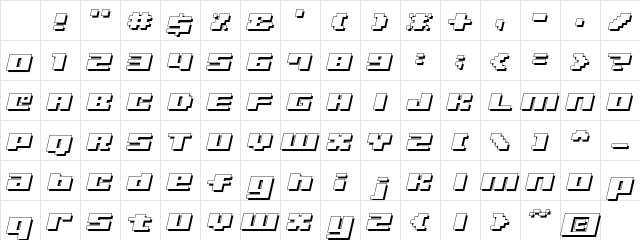
Complete Ultra SevenItalicW glyph index. Displaying only characters natively supported by Ultra SevenItalicW font.
Ultra is a composed and adaptable typeface that performs quietly and consistently across a wide range of design contexts. The slanted form adds forward momentum and visual energy.